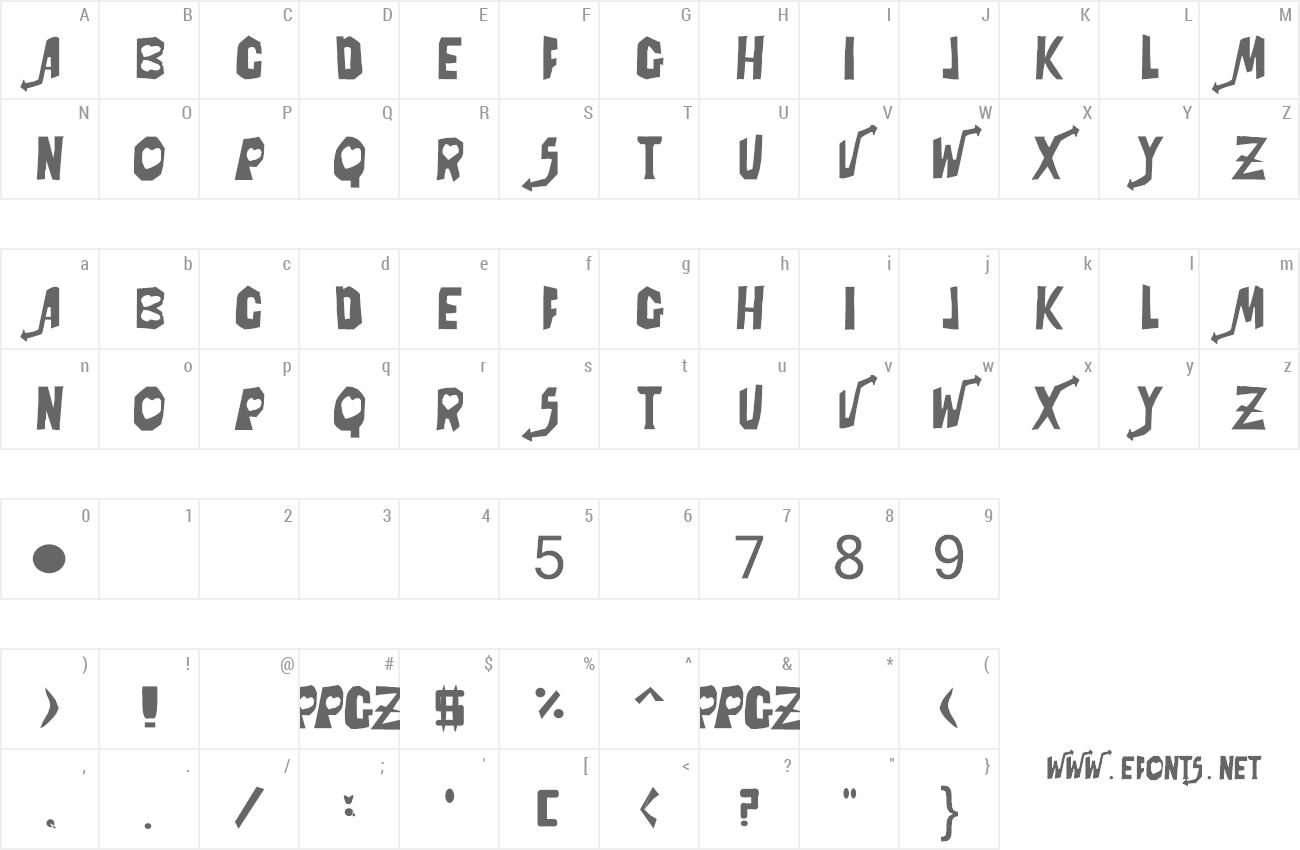
| Font name: | Powerpuff Girls Z |
| Author: | Genocide Artist |
| Note by Genocide Artist | |
Versión 4,00 de la Fuente Powerpuff Z. Ahora con mas caracteres! Los números se incluirán en la versión 5,00. Las letras ahora con un retoque mas moderno. Version 4.00 Of the Font Powerpuff Z. Now with more characters ! The numbers will be included in the 5,00 version. The letters now with a more modern touch. Exclusive Font for PPGZ Fan / Fuente Exclusica para los Fans de Las Chicas Superpoderosas Z |